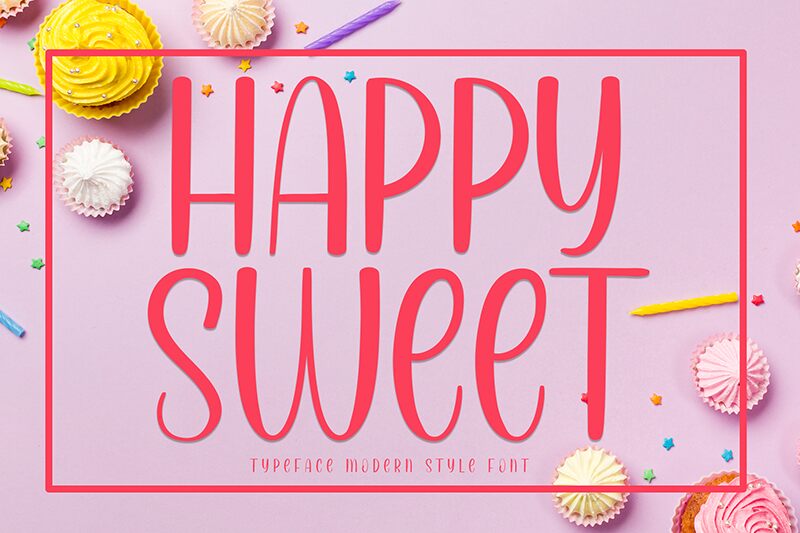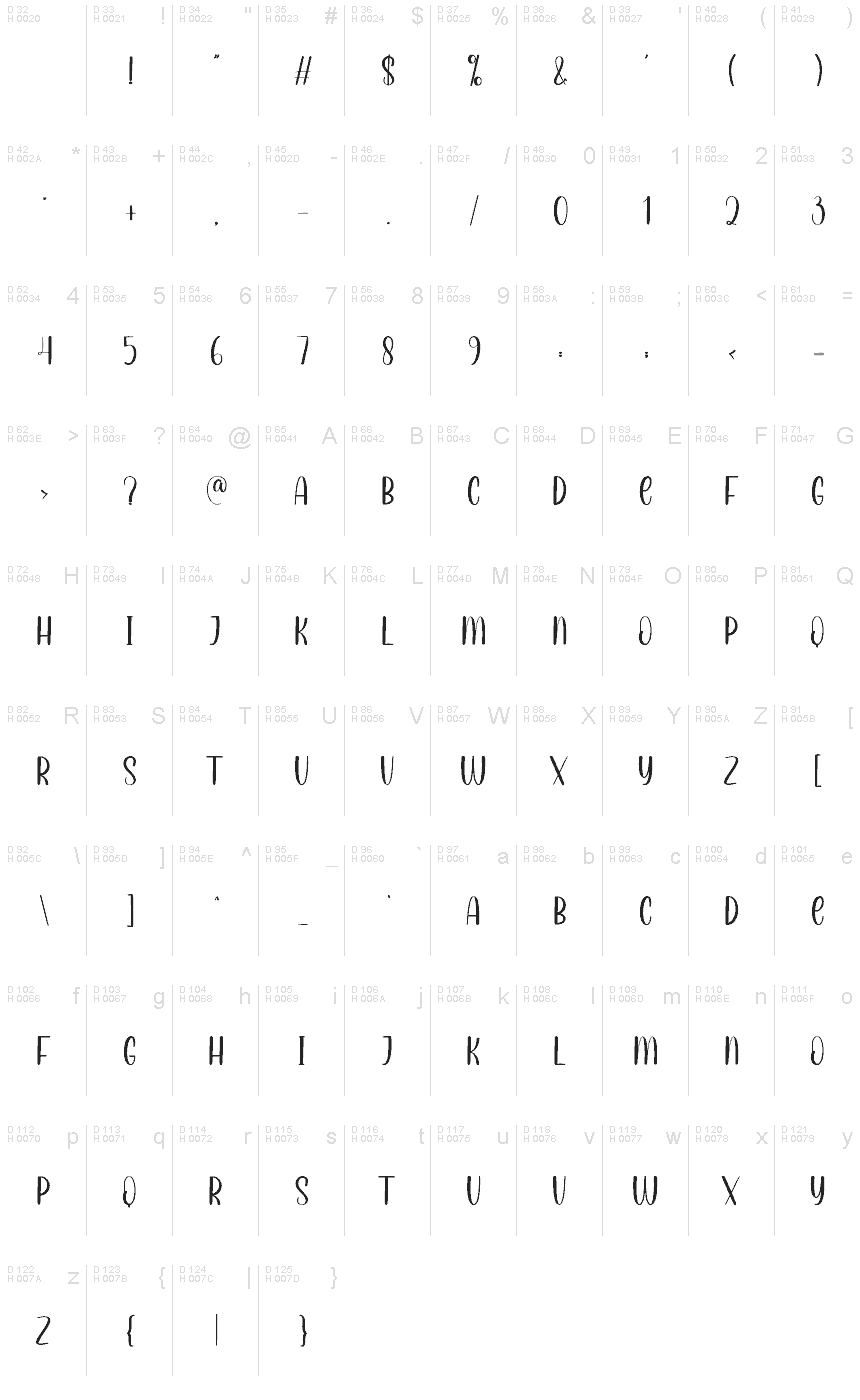
Happy Sweet
Have you ever had one of those days? The ones that go up with ease? So today was one of those days for us! We just got hold of Happy Sweet and it’s an absolute delight. The new font created by Andi Moz has everything you need to design happy projects, whether it’s wedding posters or birthday cards.
What’s special about Happy Sweet is its style. It’s a modern handwritten font so it stands out from the regular fonts and attracts more attention. This condensed font brings modern, light, yet joyful experiences. Use Happy Sweet for personal projects for your brand identity and social media posts.